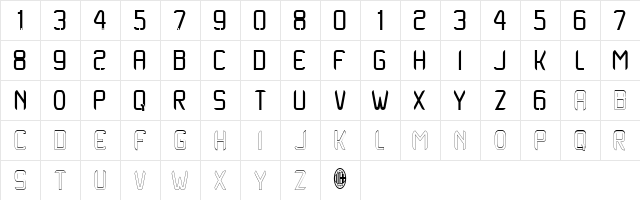
ACMilan2013-2014 Regular
Design Context for ACMilan2013-2014 Typeface
ACMilan2013-2014 is a composed and adaptable typeface that performs quietly and consistently across a wide range of design contexts.